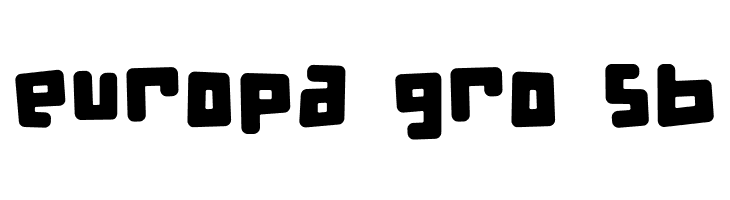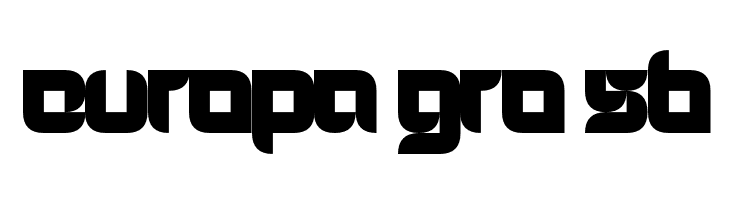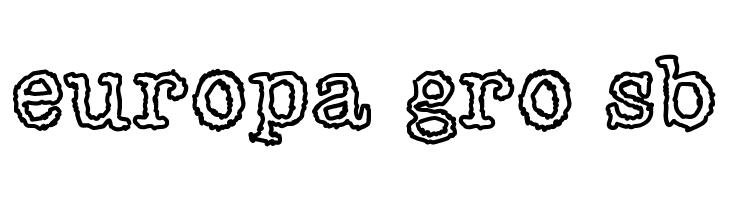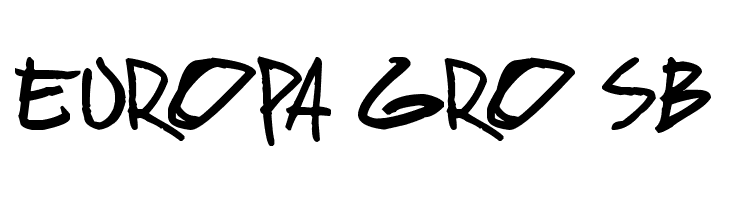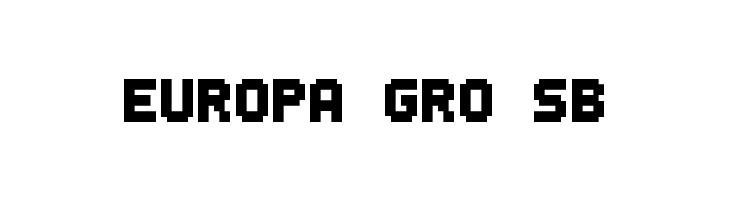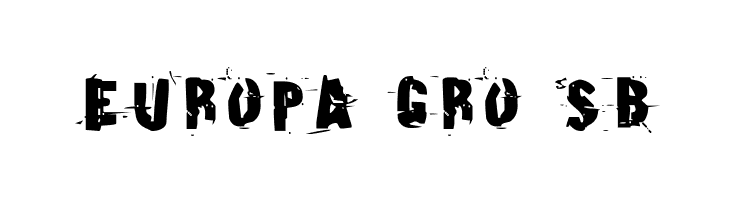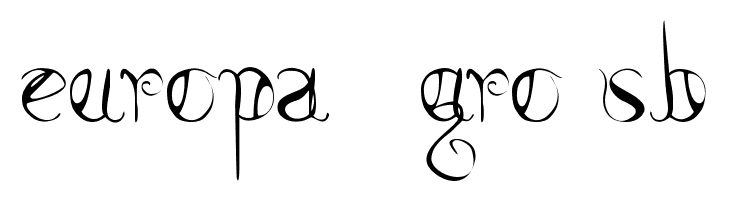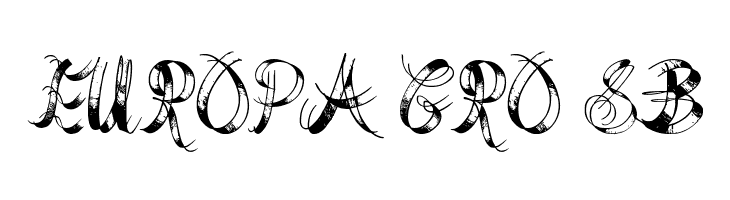
• d puntillas [b] to tiptoe
• 3HSegaRegular
A bold, geometric font with a futuristic and cohesive design.
• Shiverforyou
• geekriot Bold
A bold, handwritten font with a dynamic and casual style.
• CF Arbre Regular
A rustic, organic font with a hand-drawn, tree-like appearance.
• Small Bold Pixel-7
A bold, pixelated typeface inspired by retro digital displays.
• Pagan Winter
A geometric, angular font with sharp lines and a dynamic, futuristic style.
• Earthshake Regular
A bold, distressed font with a rugged, chaotic appearance.
• Femme Fatal
• Last Breath
An ornate and decorative font with intricate flourishes, perfect for artistic projects.